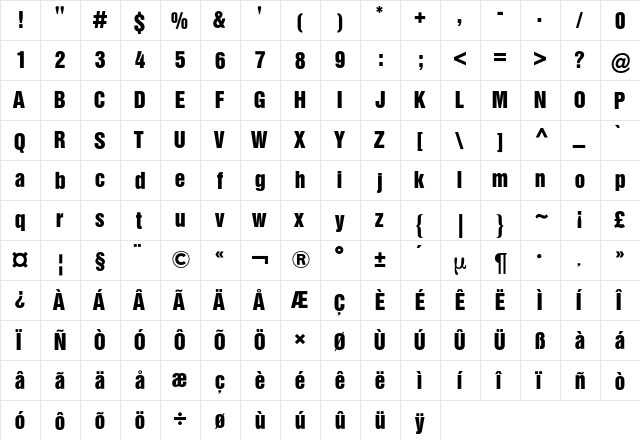
Helvetica Inserat BQ Regular
Design Context for Helvetica Inserat BQ Typeface
Helvetica Inserat BQ offers clean, dependable letterforms without strong stylistic allegiance, making it a practical choice for designers who need flexibility.